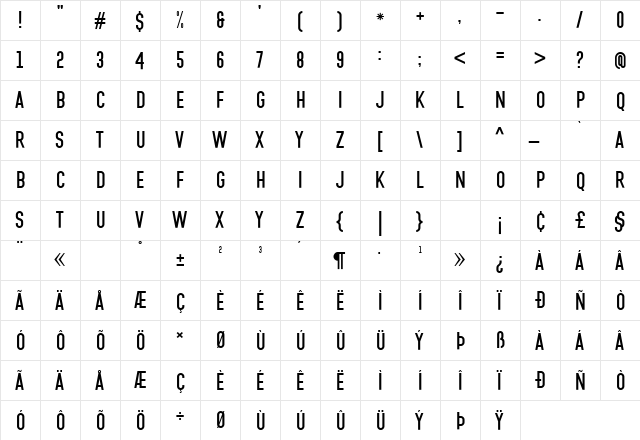
CHUTEROLK Free Regular
| Foundry | Namara Creative Studio |
| Designer | Toni Setiawan | Namara Creative Studio |
CHUTEROLK Free is a composed and adaptable typeface that performs quietly and consistently across a wide range of design contexts.